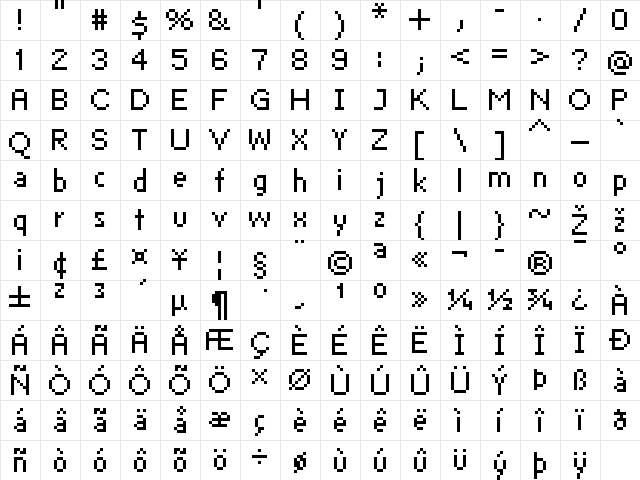
FFF Neostandard Extended Regular
Design Context for FFF Neostandard Extended Typeface
FFF Neostandard Extended offers clean, dependable letterforms without strong stylistic allegiance, making it a practical choice for designers who need flexibility.
Pro Tip: Use FFF Neostandard Extended in both headline and body roles to test its range before committing to a single application.